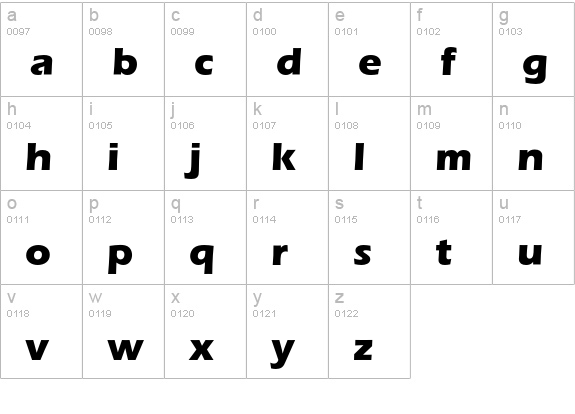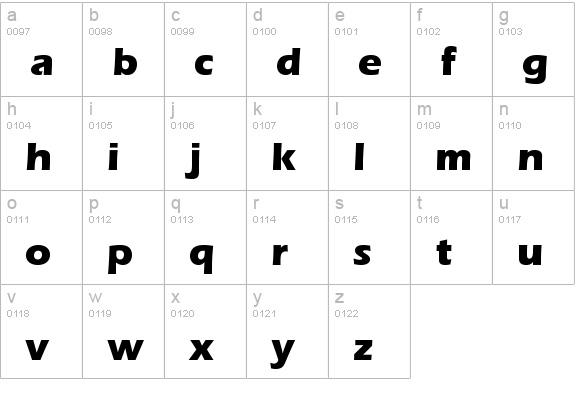
ErasEF-Bold Font Details
ErasEF-Bold is a strong, high-contrast variant in the ErasEF typeface family \xE2\x80\x94 well suited to headlines, attention-grabbing titles, and strong calls-to-action.
ErasEF-Bold is a modern and striking font that exudes confidence and boldness. With its clean lines and strong presence, this typeface is perfect for making a statement in your designs. The thick, bold characters demand attention and add a touch of sophistication to any project. Best of all, ErasEF-Bold is available for free download at FontsMarket.com. This means you can easily access this powerful font and use it in your creative endeavors without any cost. Whether you're working on a branding project, poster design, or website layout, ErasEF-Bold will surely make a lasting impression. Don't miss out on this fantastic opportunity to enhance your designs with this dynamic and impactful font.